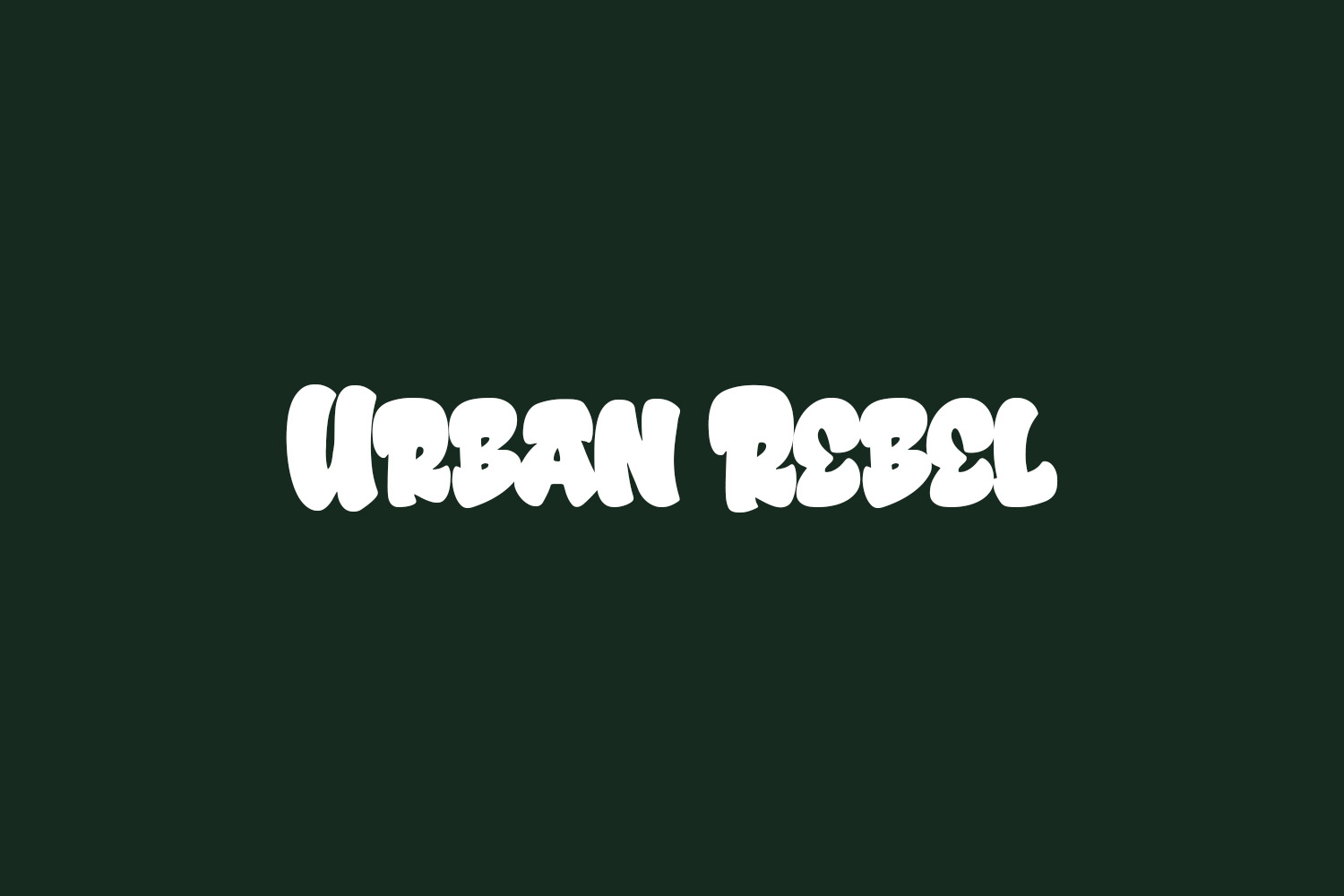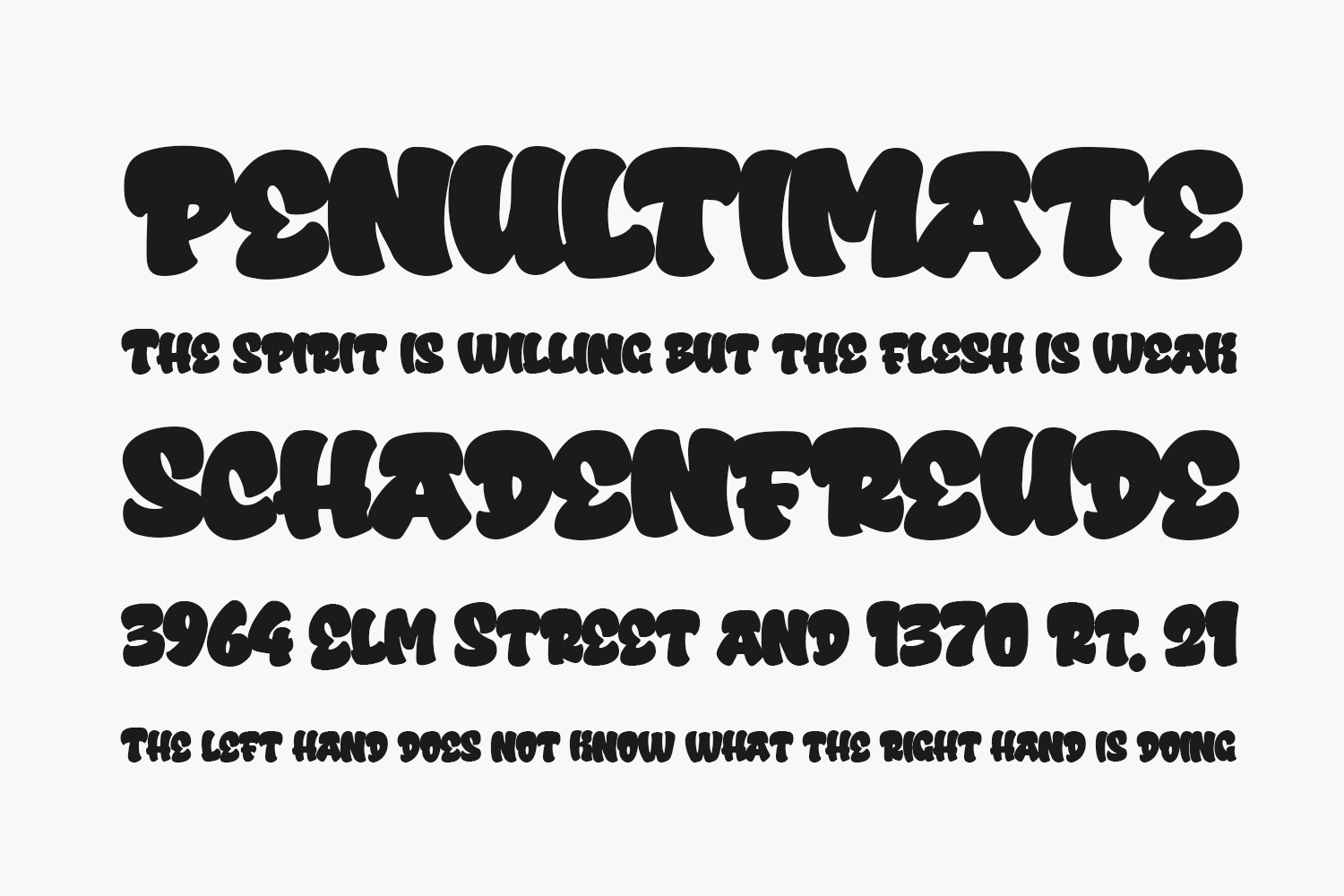
Urban Rebel Free Font Family is a cool, bold, bubbly graffiti styled display font. It will look stunning on any poster flyer or print. Use this font for your designs and explore its endless possibilities. Urban Rebel Free Font Family was designed by Bangkit Tri Setiadi and is free for personal use only. Please purchase the full version for commercial use.
Urban Rebel Regular The quick brown fox jumps over the lazy dog
Urban Rebel Outline The quick brown fox jumps over the lazy dog